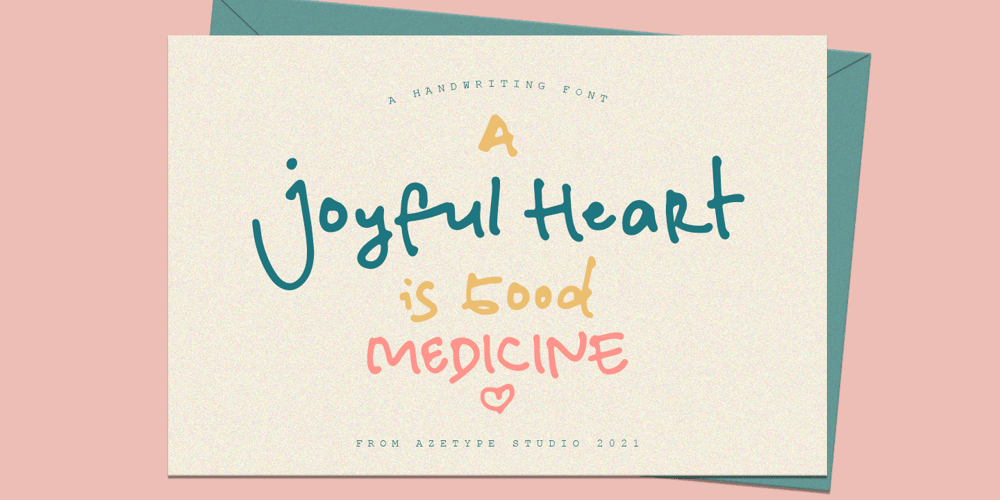
Joyful Heart Font Family was designed by Muh. Aswar and published by Azetype. Joyful Heart contains 1 styles and family package options. Have you ever used a handwritten font on your design project? Have you ever felt bored or dissatisfied with its glyphs style that looks stiff and doesn’t flow even doesn’t really characterize the peculiarities of a handwritten font? Or fonts that don’t have alternative glyphs so they look monotonous in a word or even sentence. And in the end, it makes your projects so far from your expectations, even your clients. It’s so frustrating, isn’t it? Just wake up from your dissatisfaction and this is your time to make a good choice for your design project. So, we have a solution to fix it.We introduce ‘Joyful Heart’ just for you. This is a font that really characterizes from the handwritten style. This font is crafted carefully in every its single scratch, created to look as close to a natural handwritten font so that it can create the perfect combination on each glyph. Happy Creatingwww.azetypestudios.com